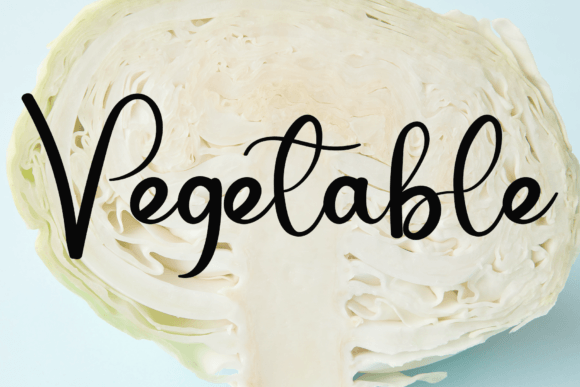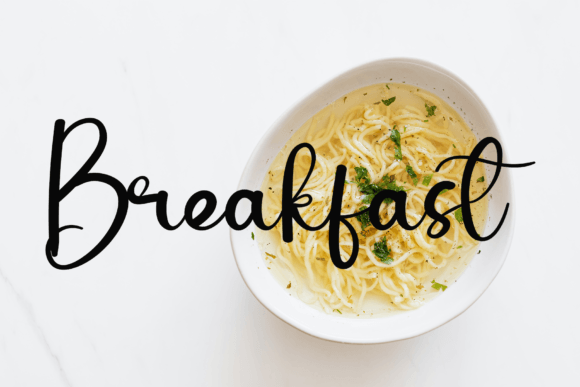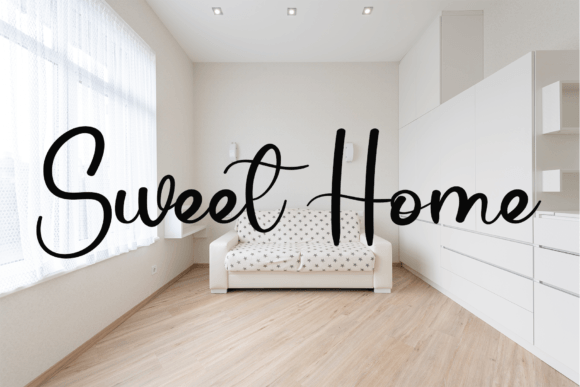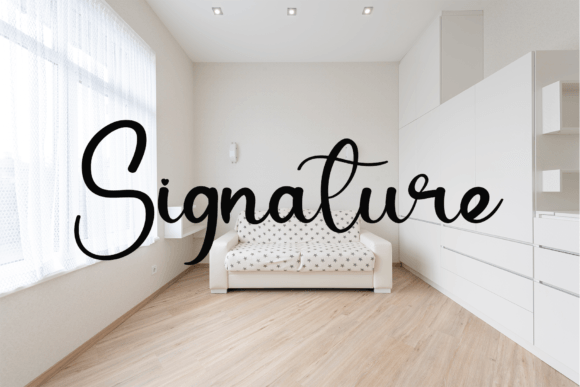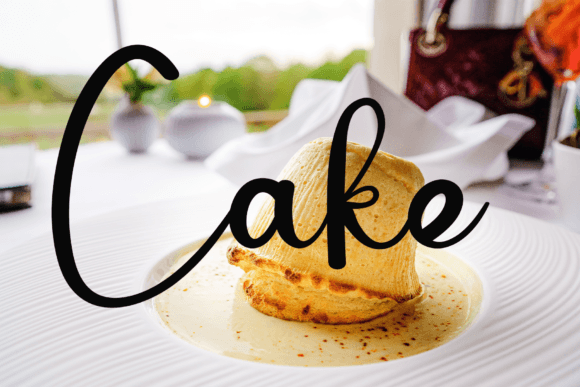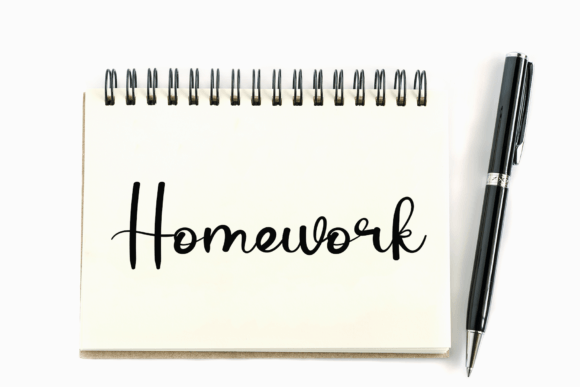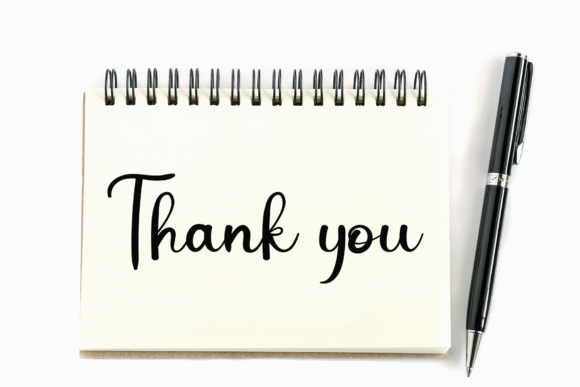
Bakery Font
About Bakery Font
**Bakery Font: Neat and Beautiful Handwritten Elegance**
Introducing “Bakery,” a font that exudes neatness and beauty in its handwritten elegance. Described by an elegant touch, Bakery is the perfect choice for a variety of design projects. Fall in love with its incredibly distinct and timeless style, and use it to create spectacular designs that stand out with sophistication.
**Neat and Beautiful Aesthetics:**
Bakery brings a sense of neatness and beauty to your projects. The handwritten elegance of this font adds a touch of refinement, making it ideal for a range of design endeavors. Whether you’re working on branding, invitations, or any creative project, Bakery enhances the visual appeal with its distinct and timeless style.
**Elegance in Every Stroke:**
The elegance in every stroke of Bakery sets it apart. Each letter is crafted with precision, creating a font that is not only visually pleasing but also exudes a sophisticated charm. Let Bakery be the element that elevates your designs with its unique and timeless aesthetic.
**Distinct and Timeless Style:**
Bakery boasts an incredibly distinct and timeless style. It stands as a testament to the art of handwritten fonts, adding character and personality to your projects. Whether used in digital or printed materials, Bakery maintains its elegance, making your designs memorable and impactful.
**Create Spectacular Designs:**
Choose Bakery to create spectacular designs that leave a lasting impression. Whether you’re designing for a bakery, a brand, or any creative endeavor, Bakery becomes the signature touch that sets your projects apart. Let it be the font that speaks of sophistication and beauty.
Bakery is more than just a font; it’s an elegant statement in every letter. Fall in love with its timeless style and let it be the muse for your favorite projects. With Bakery, your designs become a canvas for handwritten elegance, creating a visual experience that captivates and delights.